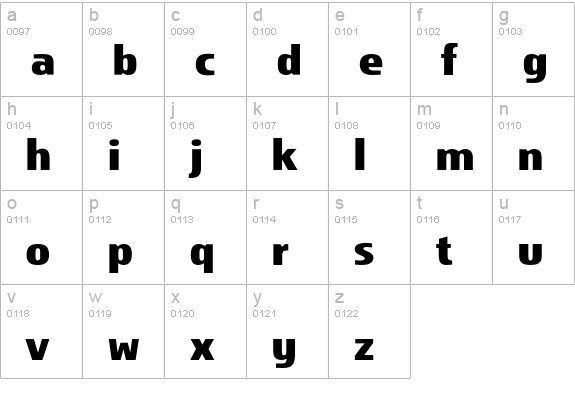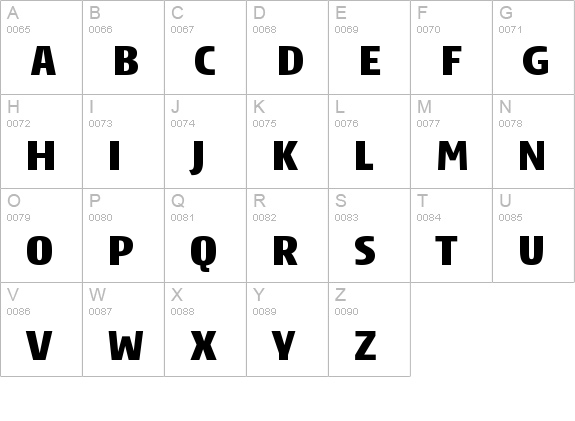
Storm Sans Std Bold Font Details
Storm Sans Std Bold is a strong, high-contrast variant in the Storm typeface family \xE2\x80\x94 well suited to headlines, attention-grabbing titles, and strong calls-to-action.
Storm Sans Std Bold is a striking and powerful typeface that commands attention with its bold weight and modern design. This versatile font is perfect for headings, titles, and other prominent text elements that need to make a strong visual impact. With its clean lines and strong presence, Storm Sans Std Bold exudes confidence and authority. The best part? Storm Sans Std Bold is available for free download at FontsMarket.com. Now you can easily add this bold and impactful font to your design projects without any cost. Whether you're creating posters, banners, logos, or any other design piece that requires a bold statement, Storm Sans Std Bold is the perfect choice. Download it today and elevate your designs with this impressive font.